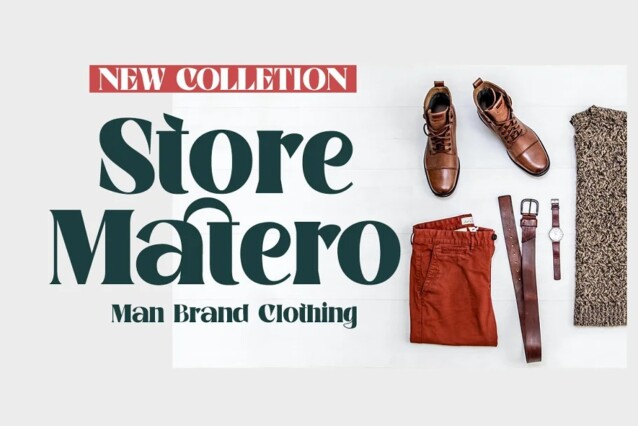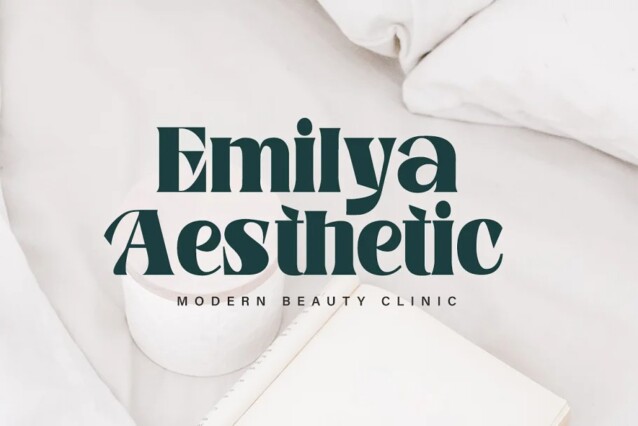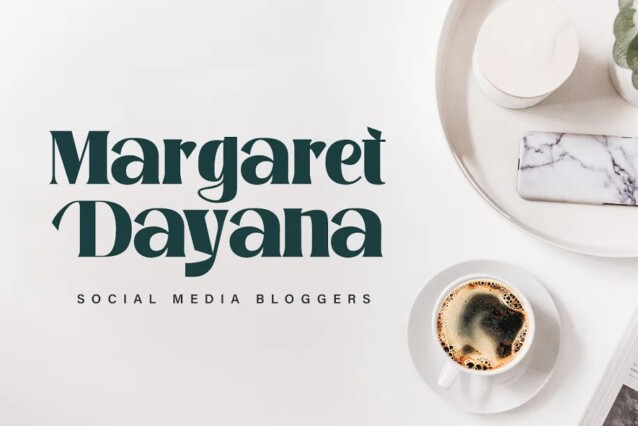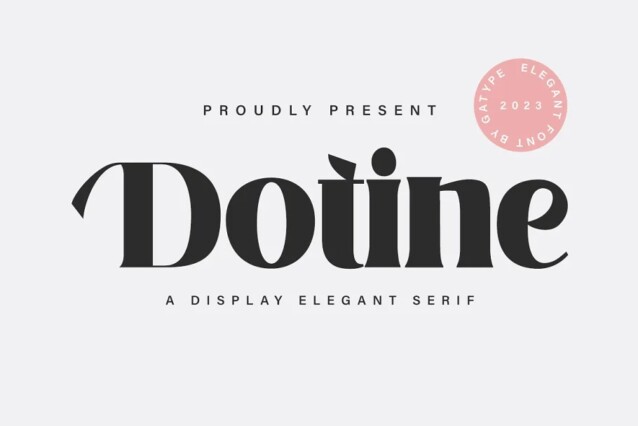
Dotine Font
Dotine Font is a beautiful display serif typeface that exudes a classic charm and bold character. It comes with different ligature characters. Bring your brand to life and add a touch of modernity and style with the Dotine. customize it for your title, logo, business card, printed quote, all kinds of invitations, cards, packaging and your website or social media branding.